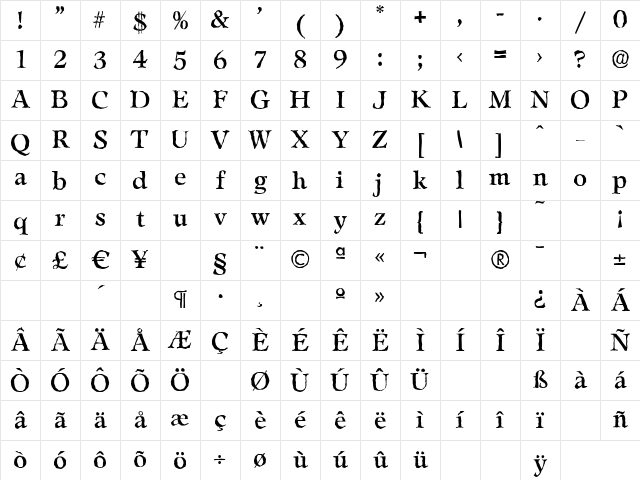
LeamingtonAntique Regular
LeamingtonAntique Family
Design Context for LeamingtonAntique
LeamingtonAntique wears its vintage influences proudly, with letterforms that recall mid-century signage, classic packaging, and nostalgia-driven design.
Font Pairing: Combine LeamingtonAntique with a simple slab or neutral sans - period-accurate companions reinforce the vintage feel without competing for attention.
Pro Tip: Lean into LeamingtonAntique's period character by pairing it with aged paper textures, muted colour palettes, and vintage illustration styles.